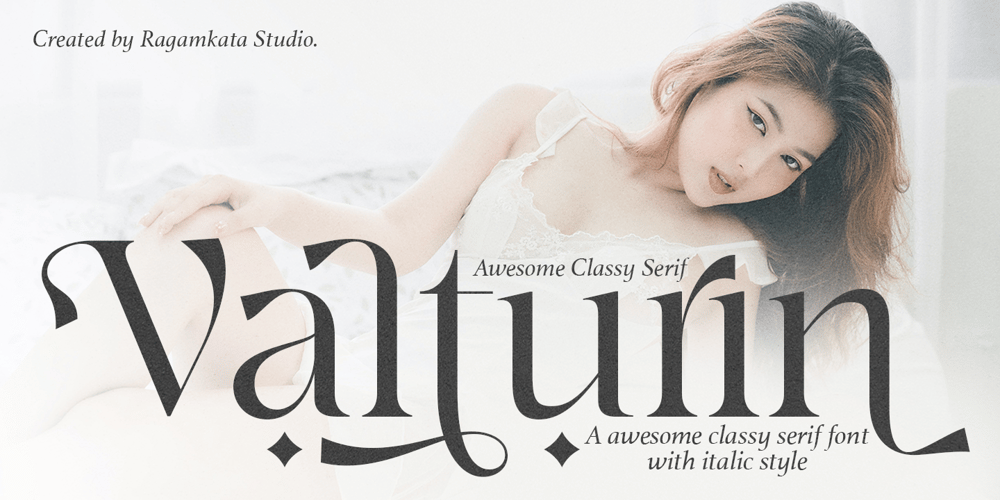
Valturin Font Family was designed by Yogiswhara Dio Prakoso Riadi and published by RagamKata. Valturin contains 2 styles and family package options. Valturin a very beautiful and minimalist appearance with an elegance touch to it. Valturin is a perfect typeface for a design to make it look luxurious and a very perfect font for a logo, classy editorial designs, fashion brand, promotion, and much more. Enhance your elegance with Valturin!